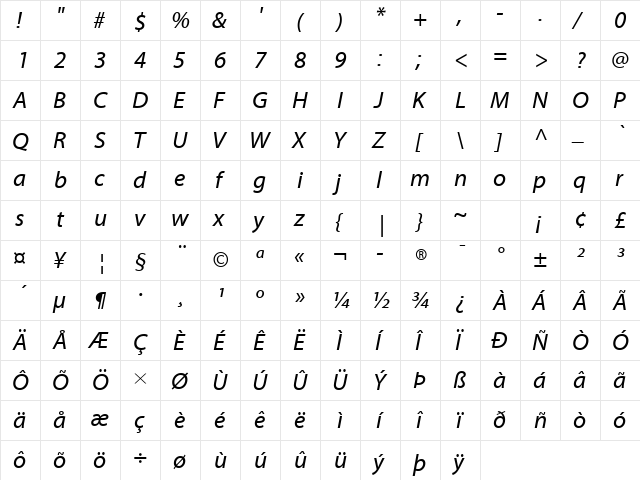
Myriad Web Pro Italic Font Preview
Myriad Web Pro Italic
Myriad Web Pro Italic Font Details
| Designer | Robert Slimbach and Carol Twombly |
Design Context for Myriad Web Pro Typeface
Myriad Web Pro offers clean, dependable letterforms without strong stylistic allegiance, making it a practical choice for designers who need flexibility. Its italic angle brings a sense of urgency and motion to the letterforms.
Pro Tip: Try Myriad Web Pro for annotation and caption copy alongside an upright companion — the contrast in angle creates a dynamic but ordered typographic system.